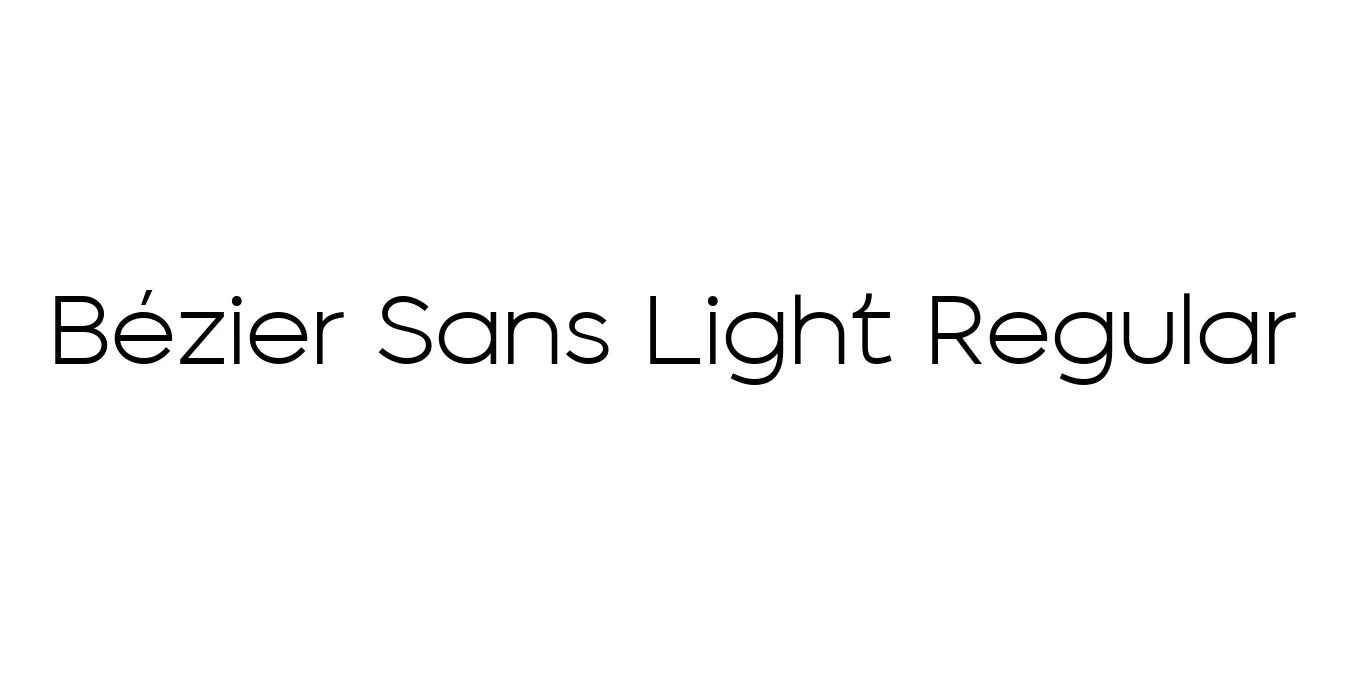
Bézier Sans Light Regular
Designed by Ryoichi Tsunekawa
| Font Name | Bézier Sans Light |
| Designer | Ryoichi Tsunekawa |
Bézier Sans Light Regular is a contemporary sans-serif typeface designed with a focus on mathematical precision and geometric harmony. Drawing inspiration from the Bézier curves used in digital vector graphics, the font features smooth transitions and balanced proportions that provide a clean, uncluttered aesthetic. Its minimalist approach makes it a versatile choice for designers looking to convey a sense of modernity and sophistication without sacrificing readability.
The Light Regular weight is particularly effective in large-scale applications where its delicate strokes and open apertures can shine. It excels in high-end editorial layouts, corporate identities, and user interface designs where a breathable, airy feel is desired. By blending technical accuracy with subtle elegance, Bézier Sans Light Regular stands out as a reliable tool for both print and digital media environments.
Bézier Sans Light Regular Best Uses
Perfect for creating elegant logos and sophisticated visual identities.
Ideal for mobile apps and websites requiring a clean and legible look.
Great for magazine headlines and stylish body text in minimalist layouts.
Excellent for clean advertising campaigns and promotional materials.